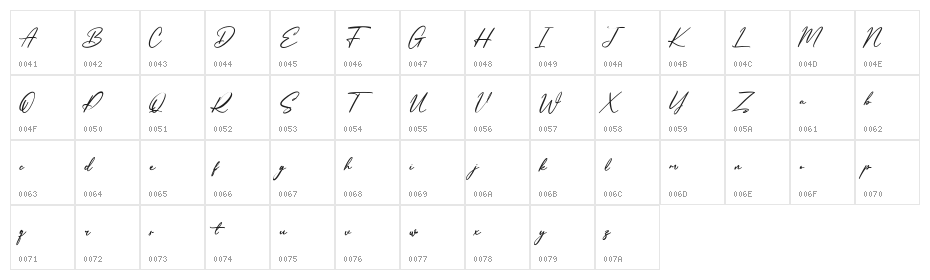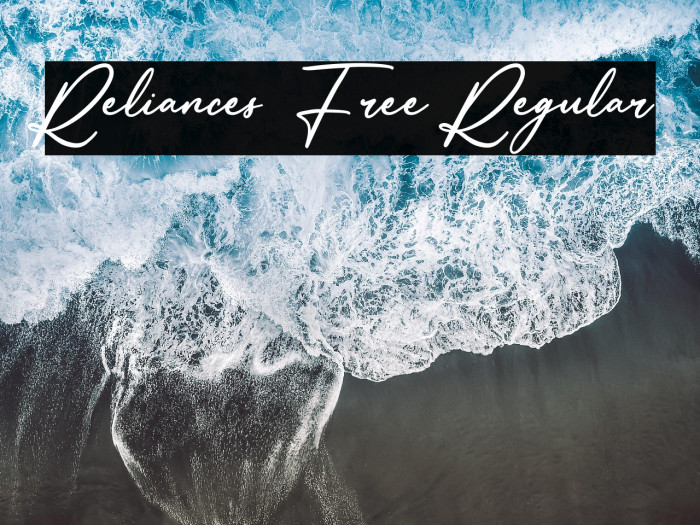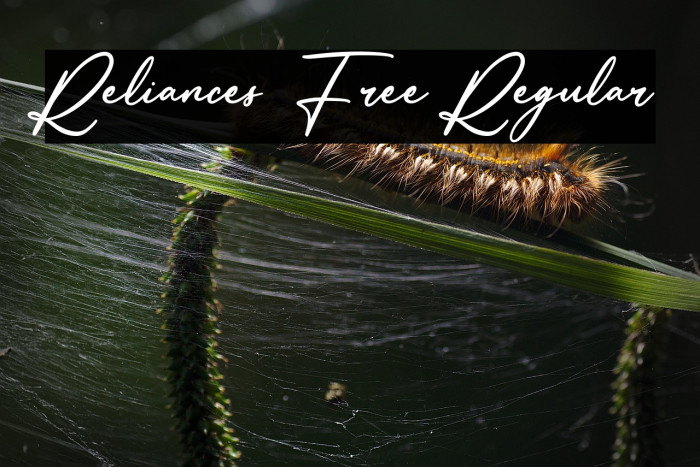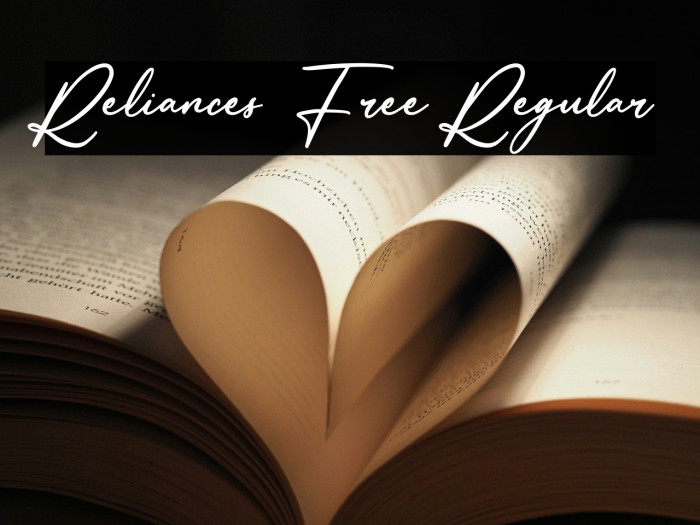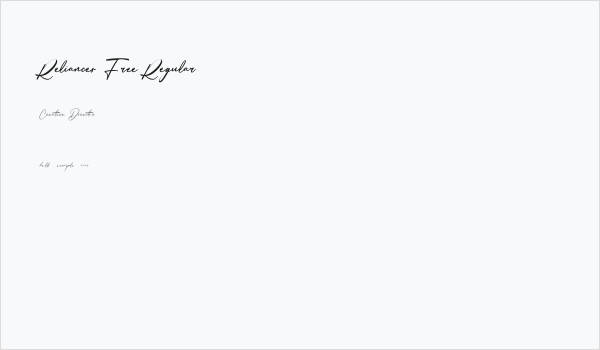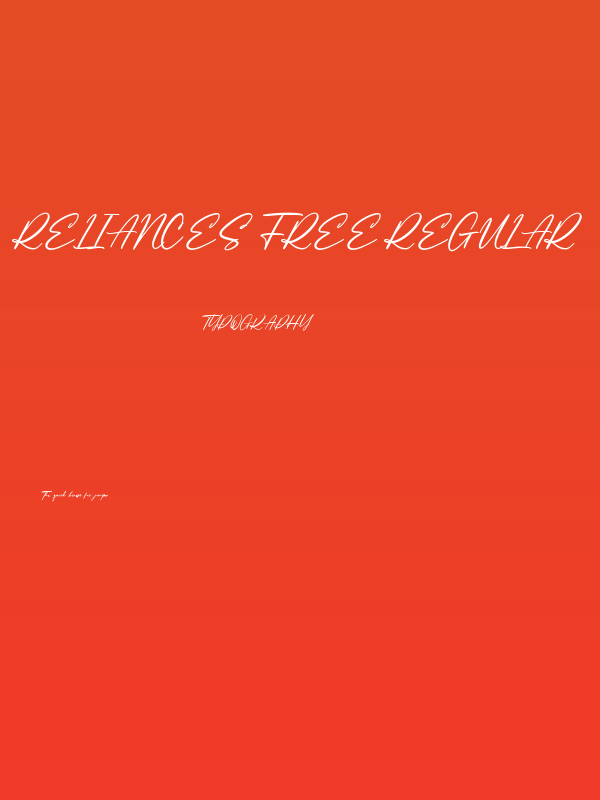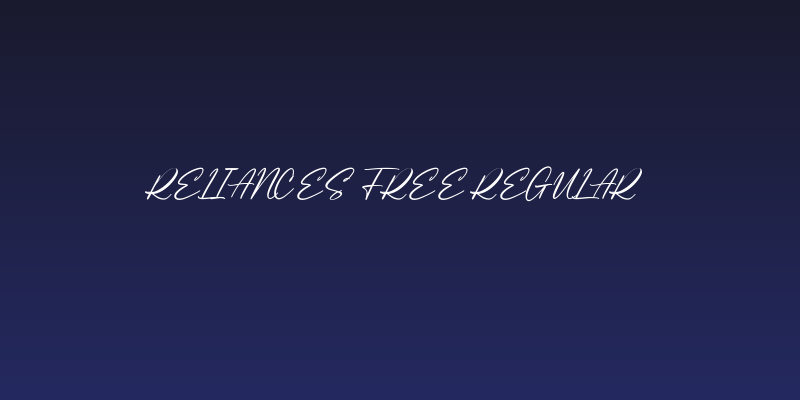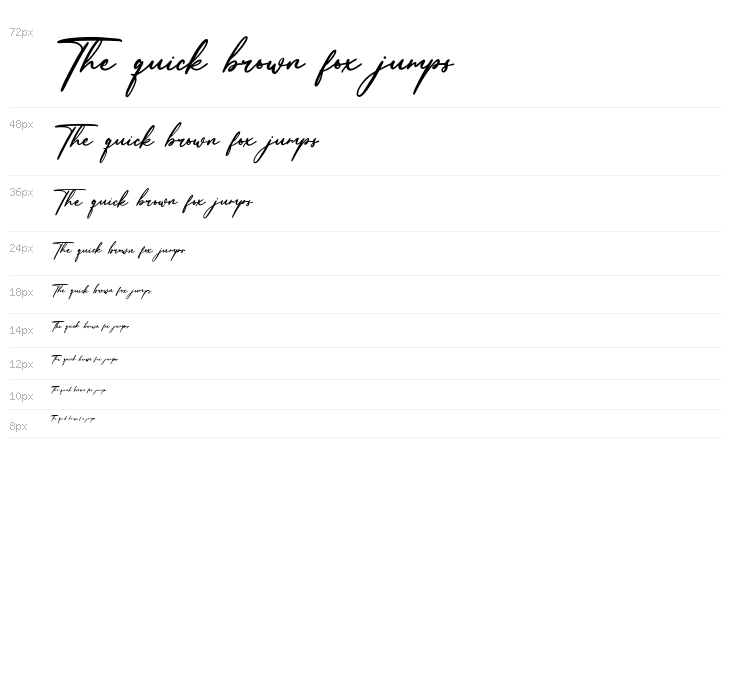
Reliances Free Regular Font
Reliances Free Regular Description
This font features a sophisticated, flowing script style that exudes elegance and grace. The characters are connected in a cursive manner, with smooth, sweeping lines and a consistent slant that adds a sense of motion and fluidity. The uppercase letters are bold and prominent, while the lowercase letters maintain a delicate and refined appearance. The overall design is reminiscent of traditional calligraphy, making it ideal for projects that require a touch of class and refinement. The font maintains a consistent stroke width, providing a balanced and harmonious look.